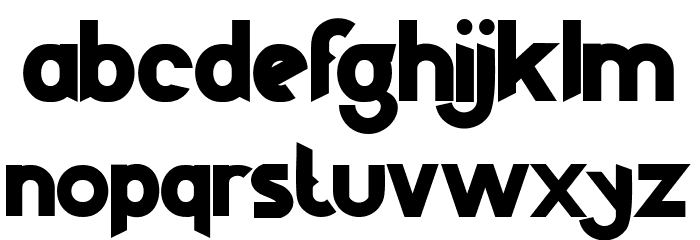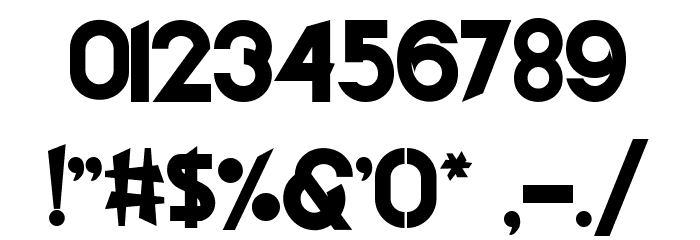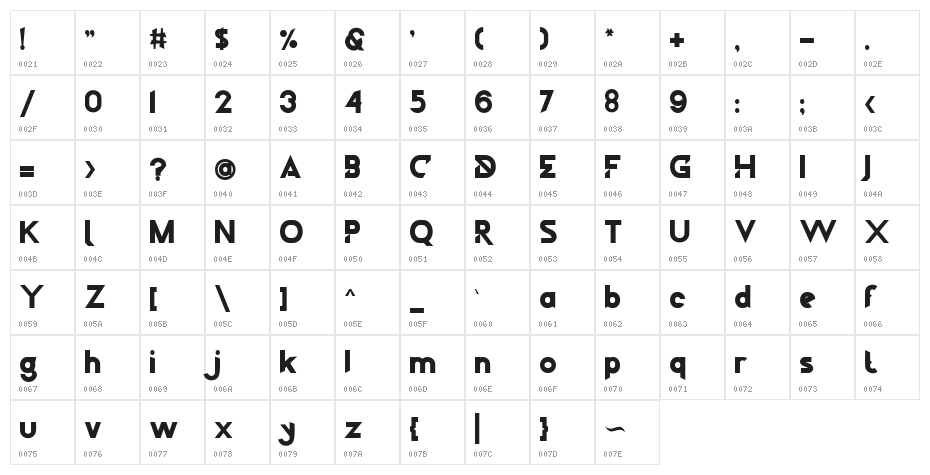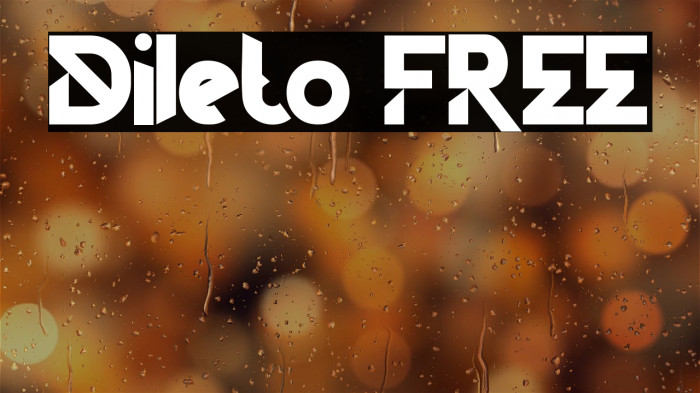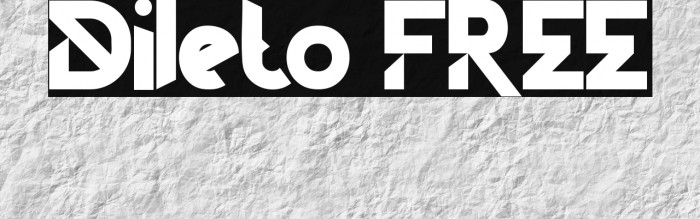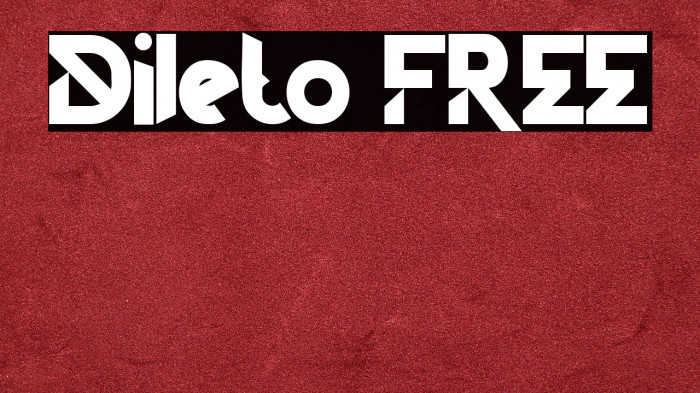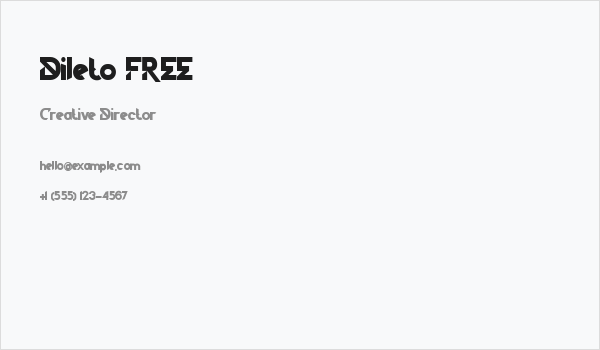
Dileto FREE Font
This font features a bold and geometric design with a modern and edgy appearance. The uppercase letters are characterized by sharp angles and unique cutouts, giving them a futuristic feel. The lowercase letters maintain a more rounded and cohesive look, balancing the overall style. Numbers and special characters follow the same bold and geometric theme, ensuring consistency across all elements. The font's distinct style makes it suitable for attention-grabbing headlines and creative projects that require a strong visual impact.
A bold, geometric font with a modern and edgy design.
- Proposed Projects: Ideal for branding, posters, album covers, and any project needing a striking, modern aesthetic.